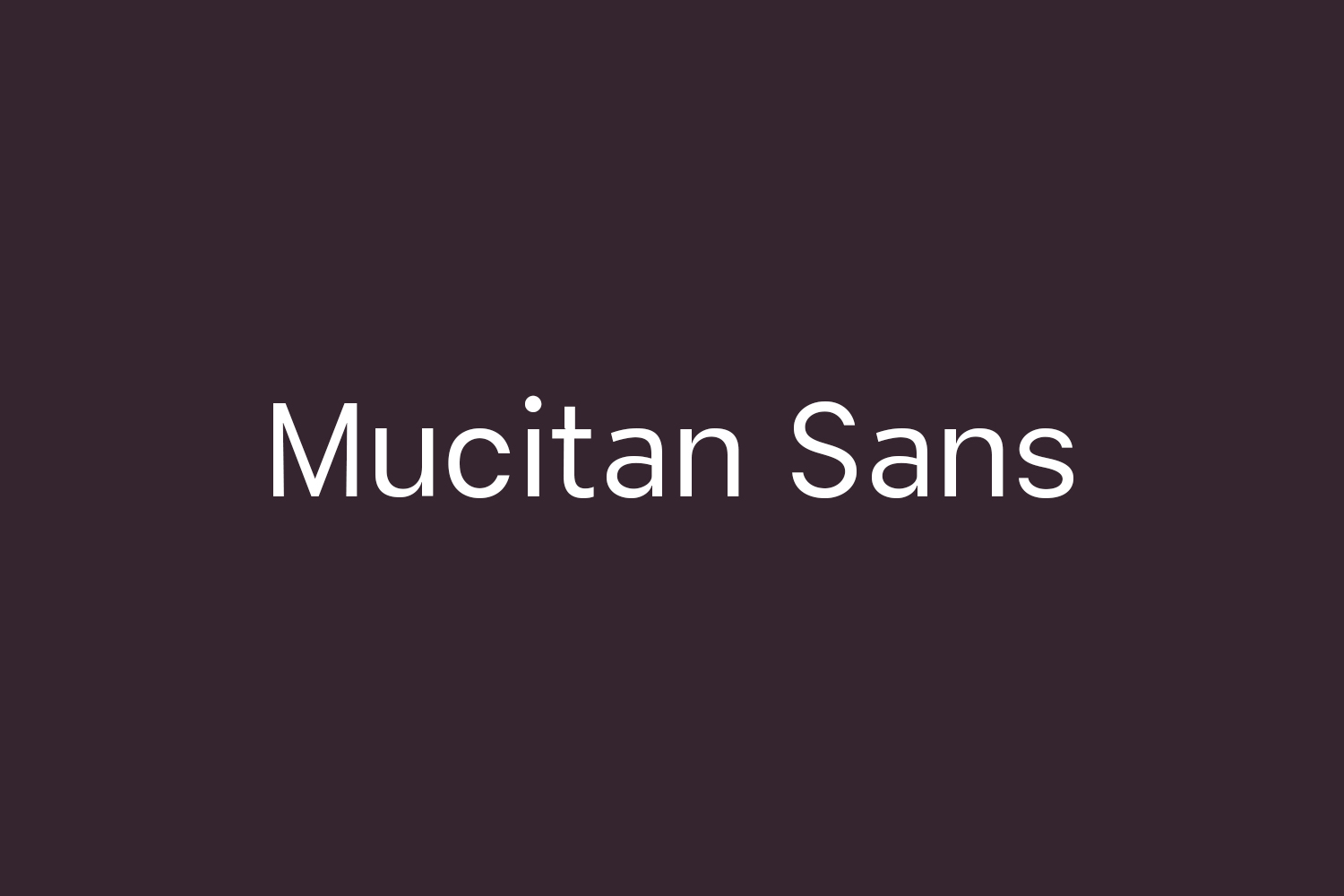
Mucitan Sans is a contemporary sans‑serif font family designed by Moch Fitrah Hidayat of Fitrah Type. Featuring seven weights from Thin to Bold and subtle ink‑trap details, this typeface balances modern geometric precision with gentle humanist touches. Mucitan Sans Free Font optimized for clarity and versatility, it’s ideal for UI design, branding, editorial layouts, web text, and signage. The trial version with 7 weights is available in OTF format for personal use only. A full commercial license can be purchased via the designer’s site.
Why Choose Mucitan Sans?
- Wide Weight Range: Seven styles from Thin to Bold support typographic hierarchy.
- Readable & Modern: Balanced x‑height and clean curves suit both headlines and paragraph text.
- Technical Refinement: Includes ink‑trap details for better rendering in print and display.
- Versatile Applications: Perfect for UI, branding, websites, editorial design, and signage.
Where to Use Mucitan Sans?
- UI & Web Design: Clean and legible interfaces, navigation, and form text.
- Branding & Logos: Adaptable weights make it great for identity systems.
- Editorial Layouts: Stylish and functional for magazines, blogs, and brochures.
- Signage & Print: Excellent legibility in print, wayfinding, and large-scale graphics.
- Presentations & Infographics: Minimalist and professional tone.
Design Tips with Mucitan Sans
Use lighter weights for elegant text settings and bold for impactful headers. Pair it with a functional sans‑serif like Montserrat for contrasting hierarchy, or a slender serif for editorial accents. Its geometric clarity works well in minimal layouts, app interfaces, and modern branding systems.
- Weights: Thin, Extralight, Light, Regular, Medium, Semibold, Bold.
- Glyphs: Uppercase (A–Z), lowercase (a–z), numerals, punctuation, basic Latin characters (~208 glyphs).